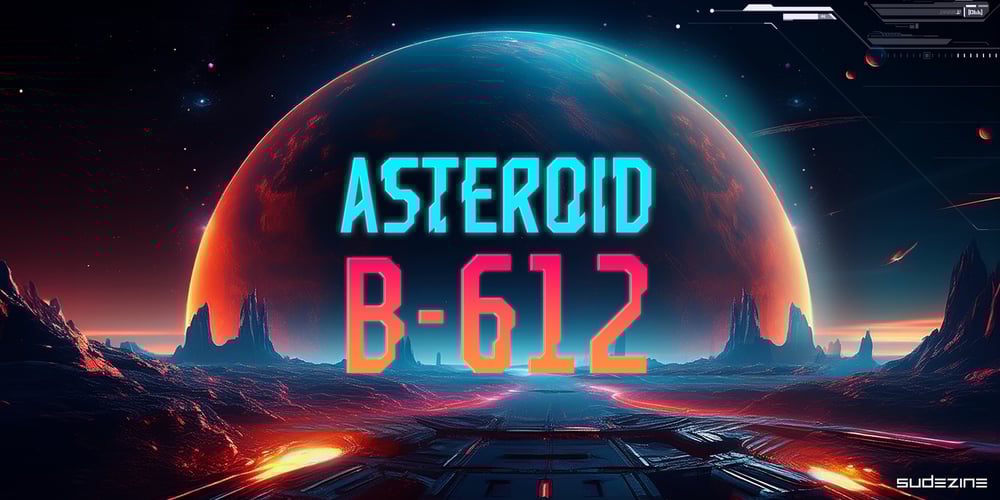
SDAsteroid B612 Font Family was designed by Suhee Hwang and published by Sudezine. SDAsteroid B612 contains 1 styles and family package options. SD_AsteroidB-612 is Galaxy Space, sci-fi futuristic Cyber Font, Use logos, quotes, invitations, greeting cards, journals, posters, clothing, and more